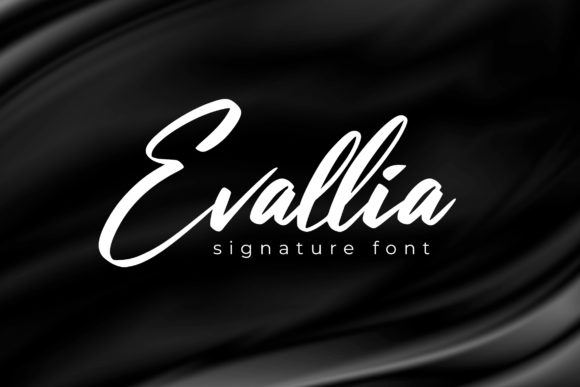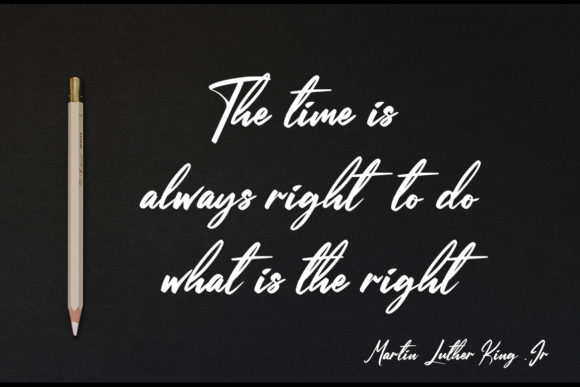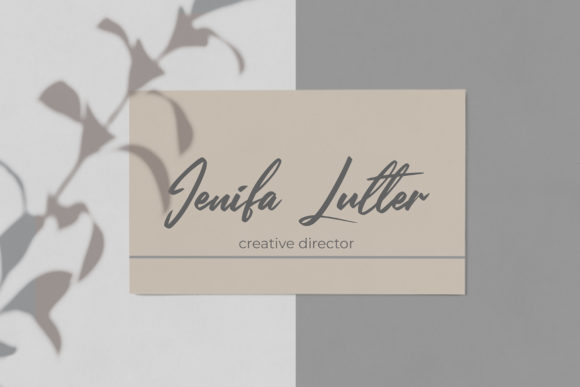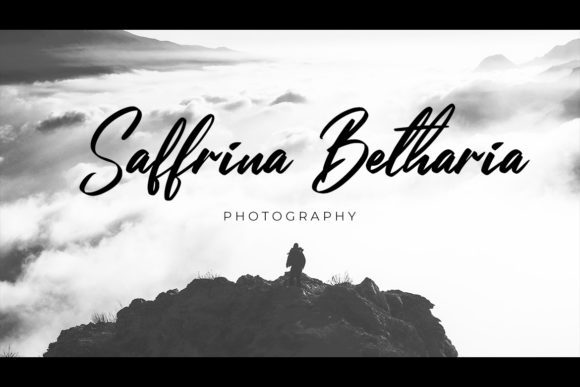
Evallia Font
About Evallia Font
Evallia is a beautiful script that features a varying baseline, smooth lines, and bold curves. It will add a touch of modernity to any design idea!